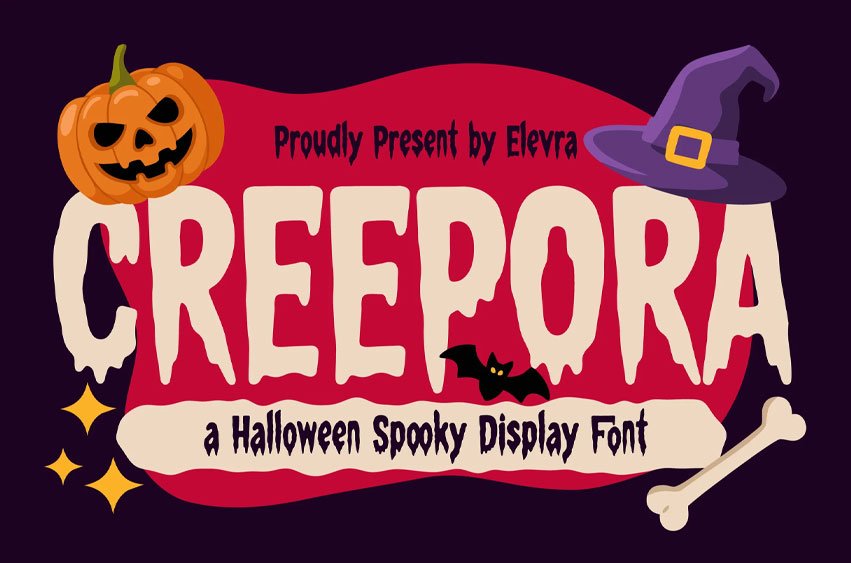
Creepora Font is a spooky Halloween display font designed to bring eerie vibes to your creative projects. With its dripping letterforms and playful horror style, this typeface is perfect for Halloween party invitations, posters, greeting cards, packaging, and themed branding. Whether you’re creating creepy titles, horror designs, or festive seasonal graphics, Creepora adds a haunting yet fun atmosphere that’s ideal for both kids and adults.
- Spooky dripping display font for Halloween designs
- Perfect for posters, invitations, packaging, and party decorations
- Fun and creepy style with a playful horror vibe
- Great for seasonal branding, social media, and festive graphics
- Includes uppercase, lowercase, numbers, and punctuation